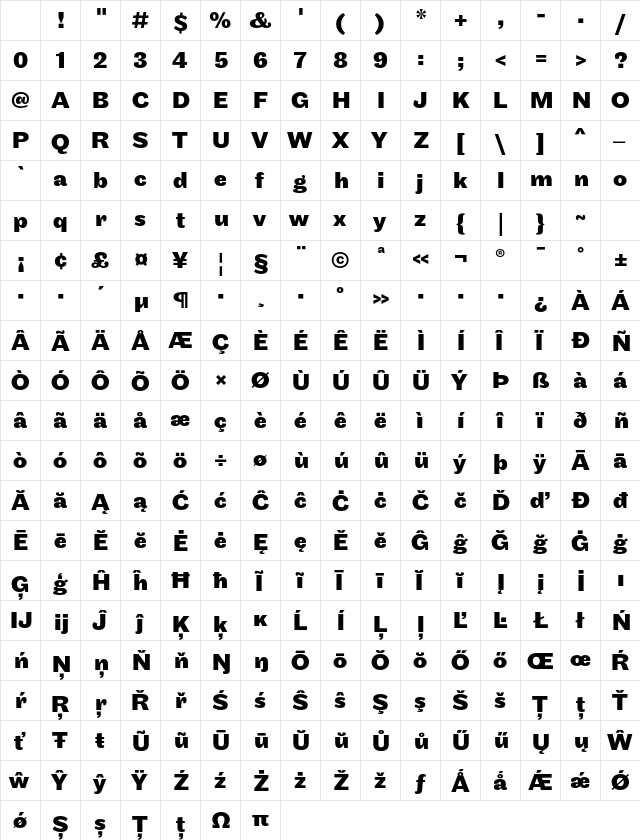
Complete Maple Bold glyph index. Displaying only characters natively supported by Maple Bold font.
Maple is a composed and adaptable typeface that performs quietly and consistently across a wide range of design contexts. Its bold stroke weight gives it real presence on the page.